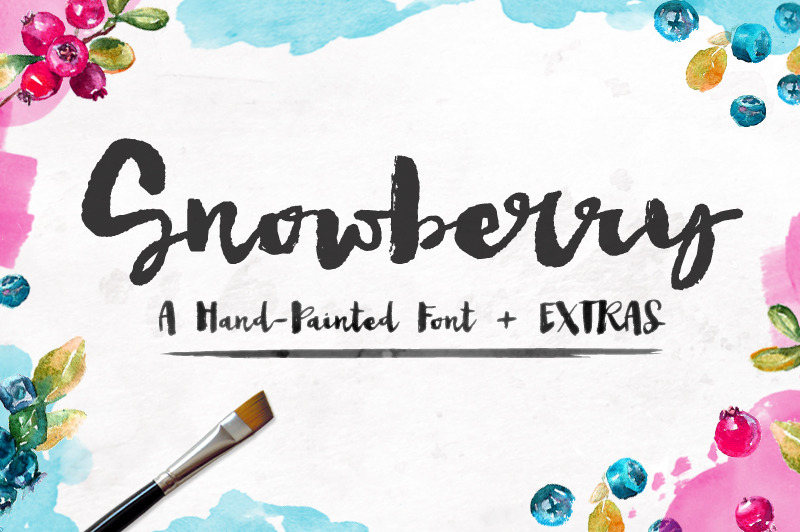
Snowberry - A Hand Painted Font
Meet Snowberry... A modern, hand-painted brushed font family for projects needing that effortless, yet convincingly hand-painted feel. Snowberry has two sets of uppercase letterforms and two varied personalities. Use the Snowberry Destroyed font to add edge, texture, and a dry brushed look to your various letterforms. Use the Regular Snowberry for a smooth, wet, painted brushed look.
BUT WAIT... that's not all. Included is a third ornament font with swirls, swashes, paint splatters, catchwords, and ampersands so you messy brush lettering fanatics (You know who you are) can eat your heart out. An image guide to use these ornaments is also included.
Multilingual support. If you have a question about whether a glyph is included, drop me a line. Contextual alternates include several unique pairs. (Ex. rr, ff, etc.). Use stylistic alternates in your Open Type software to access the second set of capital letters.